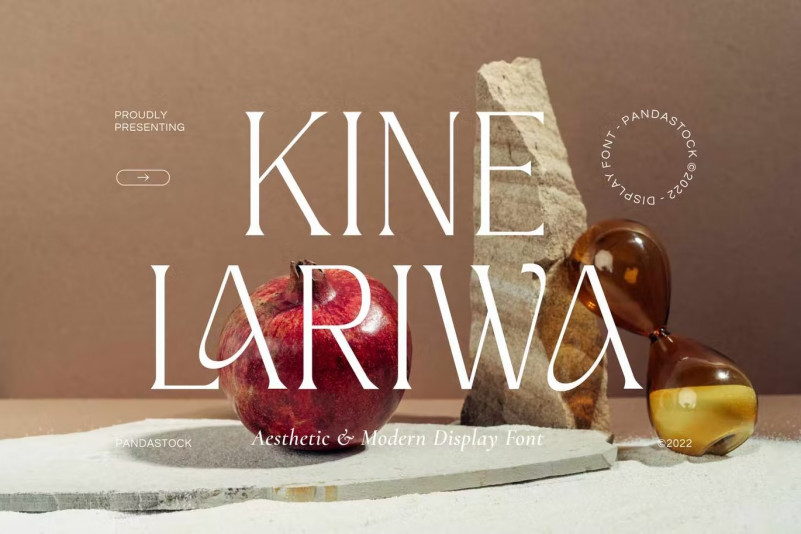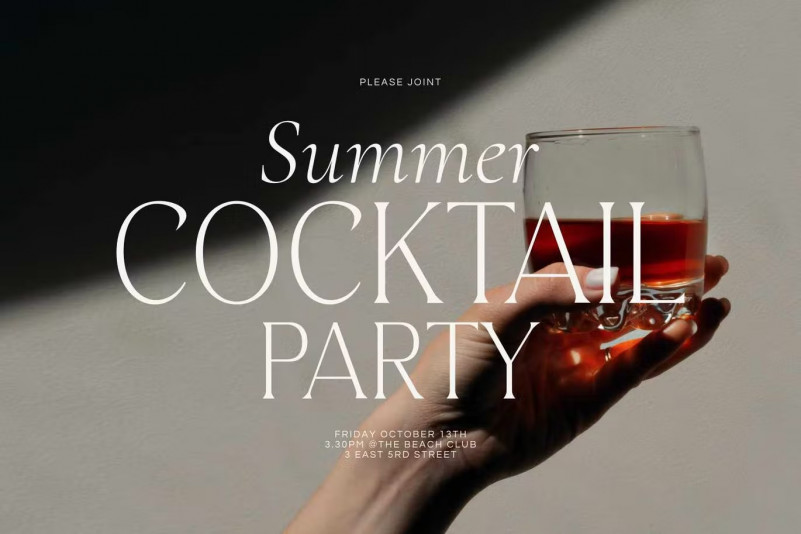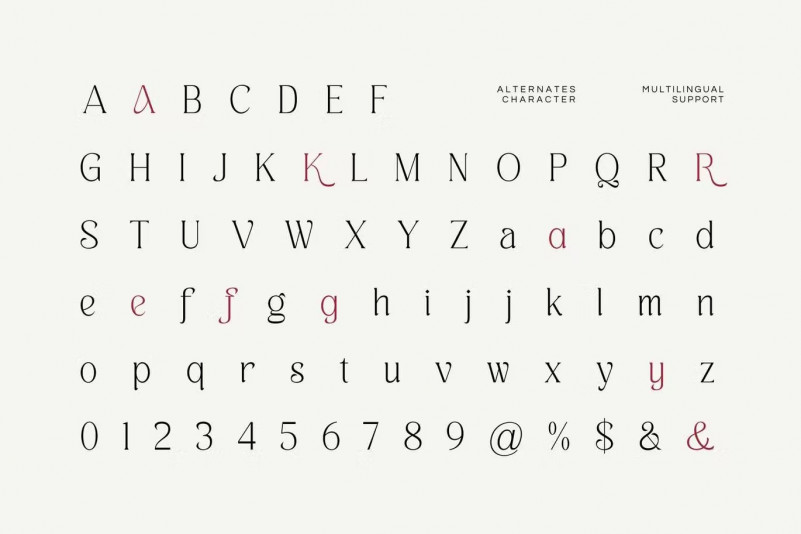
Kine Lariwa Font
Kine Lariwa is old style font with visual elegance, smooth curves and beautiful ligatures clear, making your work look true and attractive.
A very versatile font that works in both large and small sizes. This font is suitable for a wide variety of projects such as invitations, logo, branding, magazine, photography, card, product packaging, mugs, quotes, poster, label, signature and more.
Font which is perfect for all business sectors including personal projects, studio, corporate, creative agency, industrial, company, etc.